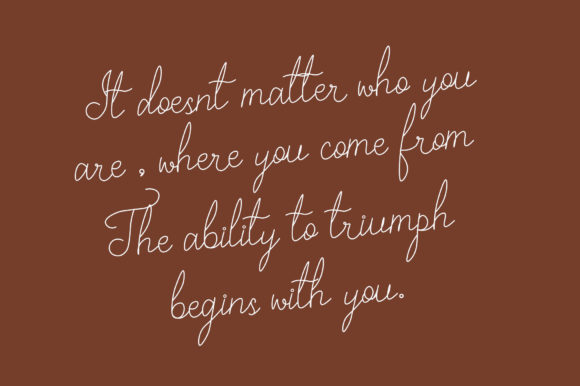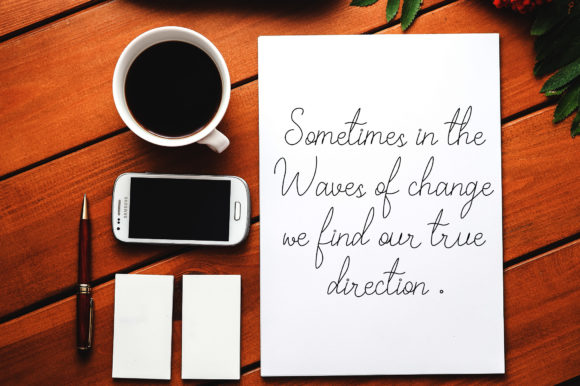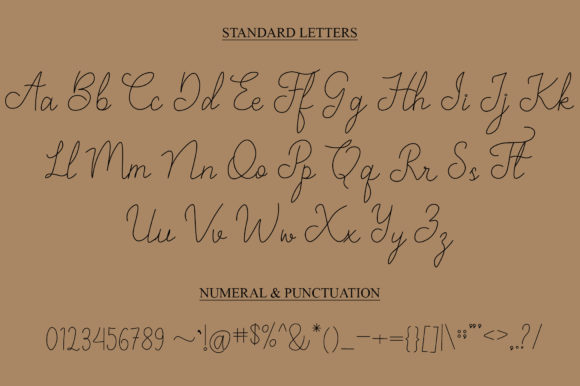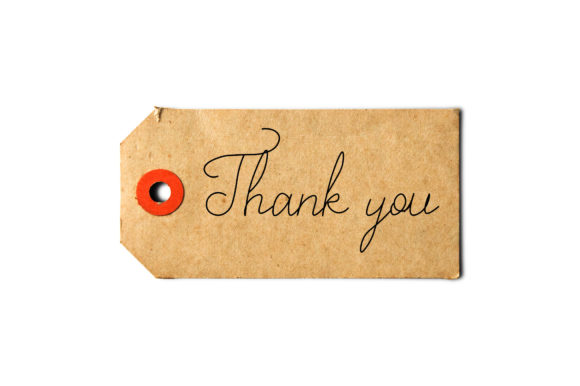
Discover the Allure of Alabama Font
Have you ever found yourself staring at a blank page, desperately seeking the perfect font to bring your creative vision to life? We’ve all been there. As designers, we know that the right font can elevate our work from ordinary to extraordinary. And that’s exactly what the Alabama Font does – it adds a touch of elegance and sophistication to any design.
The Alabama Font is a delicate, thin, and flowing handwritten font that boasts beautiful and well-balanced characters. Its versatility makes it a perfect match for a wide range of designs, from elegant wedding invitations to modern business cards.
Whether you’re a seasoned designer or just starting out, the Alabama Font is a valuable tool to have in your arsenal. Its unique style and versatility make it an excellent choice for creating spectacular designs that leave a lasting impression.
Alabama Font Key Features
- Size: The font family includes a range of weights from Light to Bold, with each weight available in multiple font sizes.
- Resolution: The font is designed for use at high resolutions (up to 1200 dpi) and is ideal for printing and digital display.
- Unique Characteristics: Alabama Font features a distinctive, hand-drawn feel with intricate details and ornaments, making it suitable for formal and elegant designs.
- Language Support: The font includes support for a wide range of languages, including Latin-based languages, Cyrillic, and Greek.
- Font Metrics: Alabama Font is designed with precise font metrics to ensure accurate typesetting and optimal readability.
Alabama Font Review
I recently had the chance to work with the Alabama Font, and here’s my honest review:
- Unique and distinctive feel: The Alabama Font has a one-of-a-kind aesthetic that can add a touch of elegance to any design.
- Legibility: This font is highly legible, making it perfect for body text and content-heavy designs.
- Flexibility: The Alabama Font comes in a range of weights, from light to bold, allowing for versatility in design applications.
- Limited support for languages other than English: Unfortunately, the Alabama Font may not be suitable for designs requiring extensive non-English text.
- Not ideal for small text sizes: Due to its unique design, the Alabama Font can become difficult to read at very small text sizes.
The Alabama Font is a great choice for designers looking to add a touch of sophistication to their work. While it may have some limitations, its unique feel and flexibility make it a valuable addition to any design toolkit.
Tips for Getting the Most Out of Alabama Font
The Alabama font is a beautiful, elegant font that works well for formal and informal projects alike. To get the most out of it, try the following:
- Pair it with a clean, simple background to let the font shine.
- Use the font for headings and titles to add a touch of sophistication.
The Alabama font is perfect for:
- Wedding invitations and
Alternatives to “Alabama Font” for Designers
Bodoni is a classic serif font that is often used in formal and elegant designs. It features a strong and sophisticated appearance, making it suitable for use in high-end branding, luxury products, and formal invitations.
Compared to Alabama Font, Bodoni has a more dramatic flair and is often used in situations where a sense of luxury and sophistication is desired. However, it can appear less approachable and friendly than Alabama Font.
Playfair Display is an elegant and luxurious serif font that is often used in high-end branding and advertising. It features a unique blend of classic and modern elements, making it suitable for use in situations where a sense of sophistication and elegance is desired.
Compared to Alabama Font, Playfair Display has a more dramatic and luxurious appearance, making it more suitable for use in high-end branding and advertising. However, it can appear less approachable and friendly than Alabama Font.